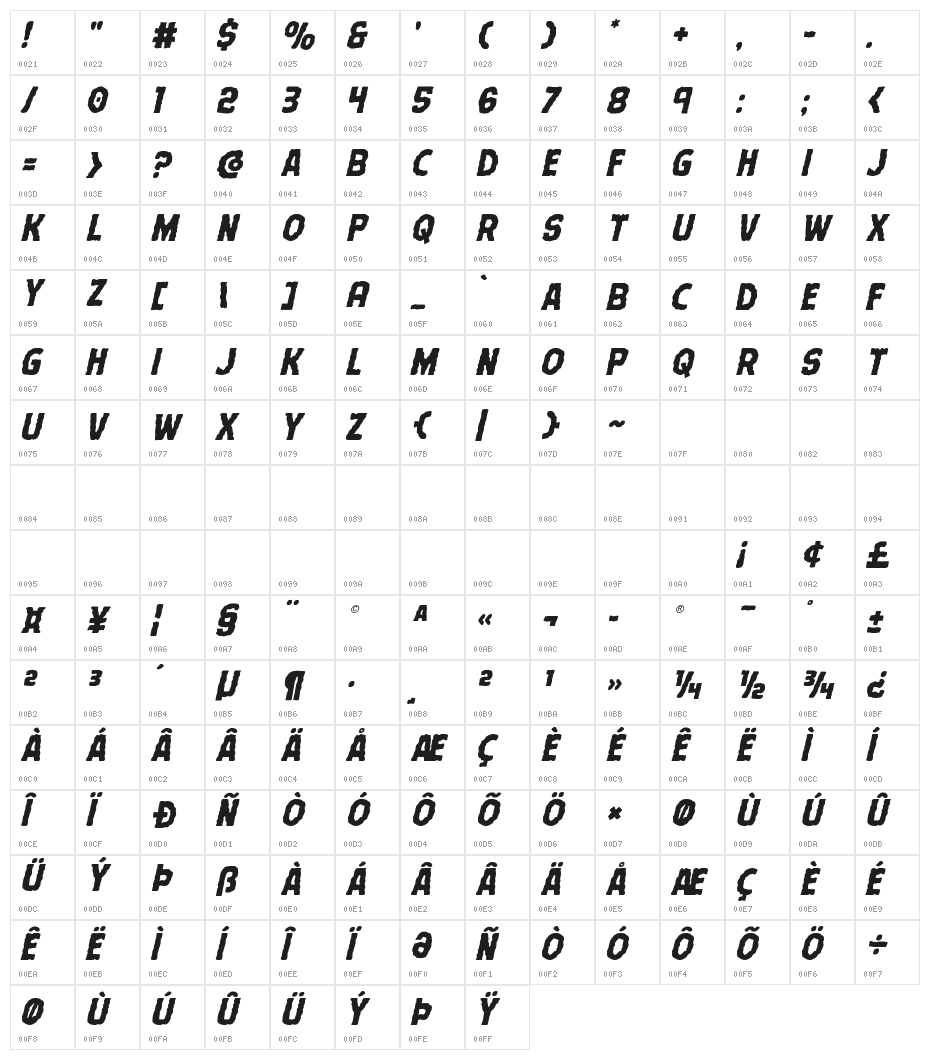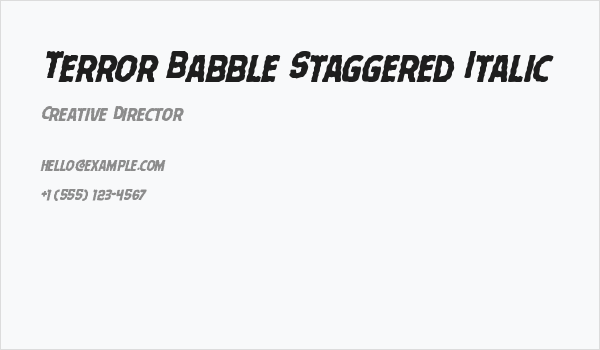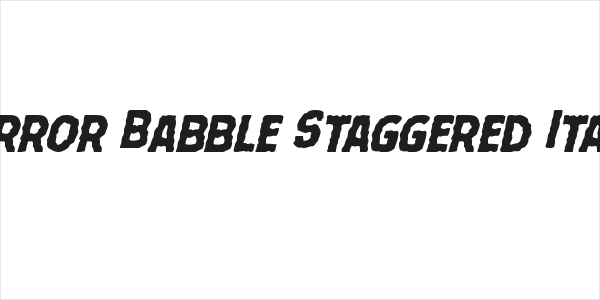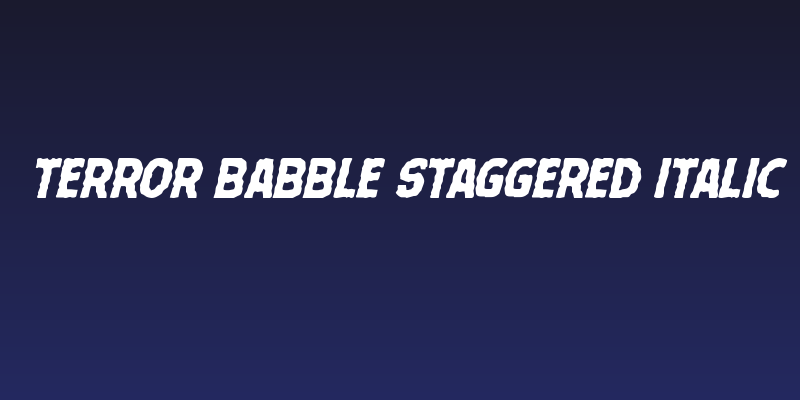
Terror Babble Staggered Italic Font
Terror Babble Staggered Italic Description
This font features a bold and dynamic style with staggered, italicized characters that convey a sense of movement and urgency. The uppercase and lowercase letters are robust, with thick strokes that create a strong visual impact. The numbers and special characters maintain this boldness, ensuring consistency across the character set. The italic slant adds a layer of dynamism, making it suitable for attention-grabbing designs. The font's unique, slightly distorted appearance gives it a playful yet edgy feel, perfect for projects that require a touch of creativity and boldness.